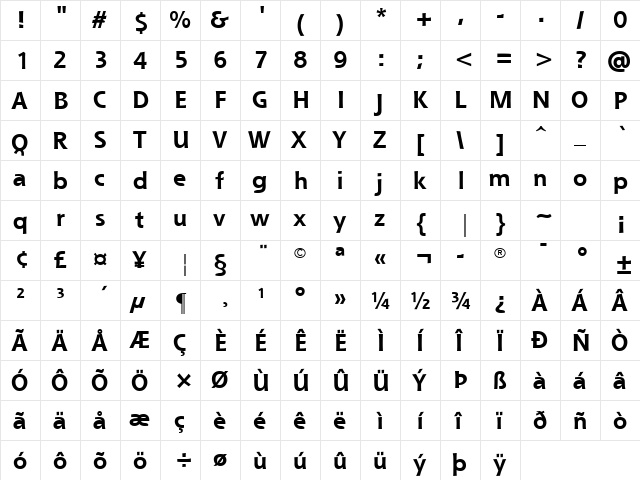
Misty Mountain 4 Bold
Misty Mountain 4 offers clean, dependable letterforms without strong stylistic allegiance, making it a practical choice for designers who need flexibility. Its bold stroke weight gives it real presence on the page.